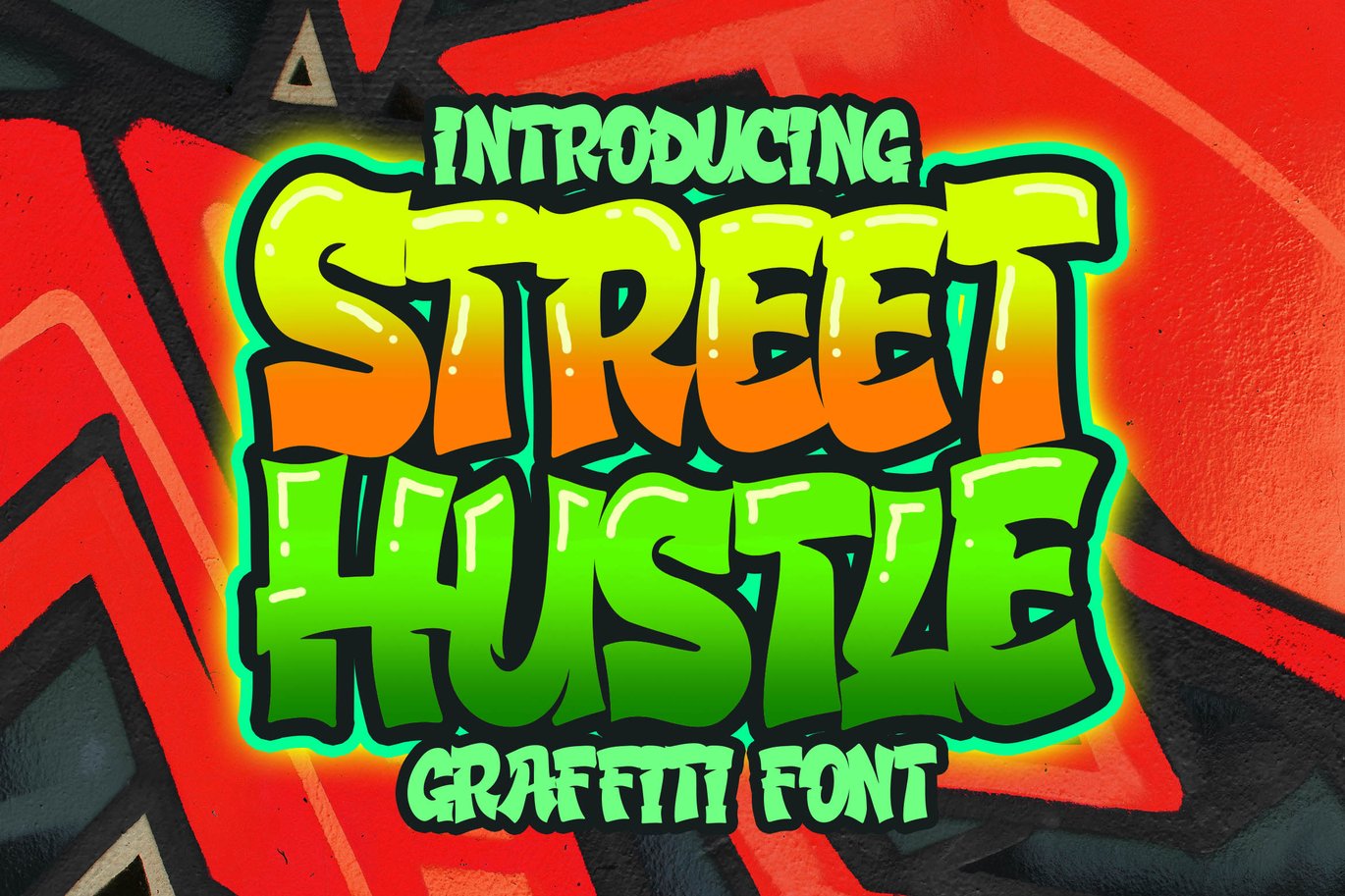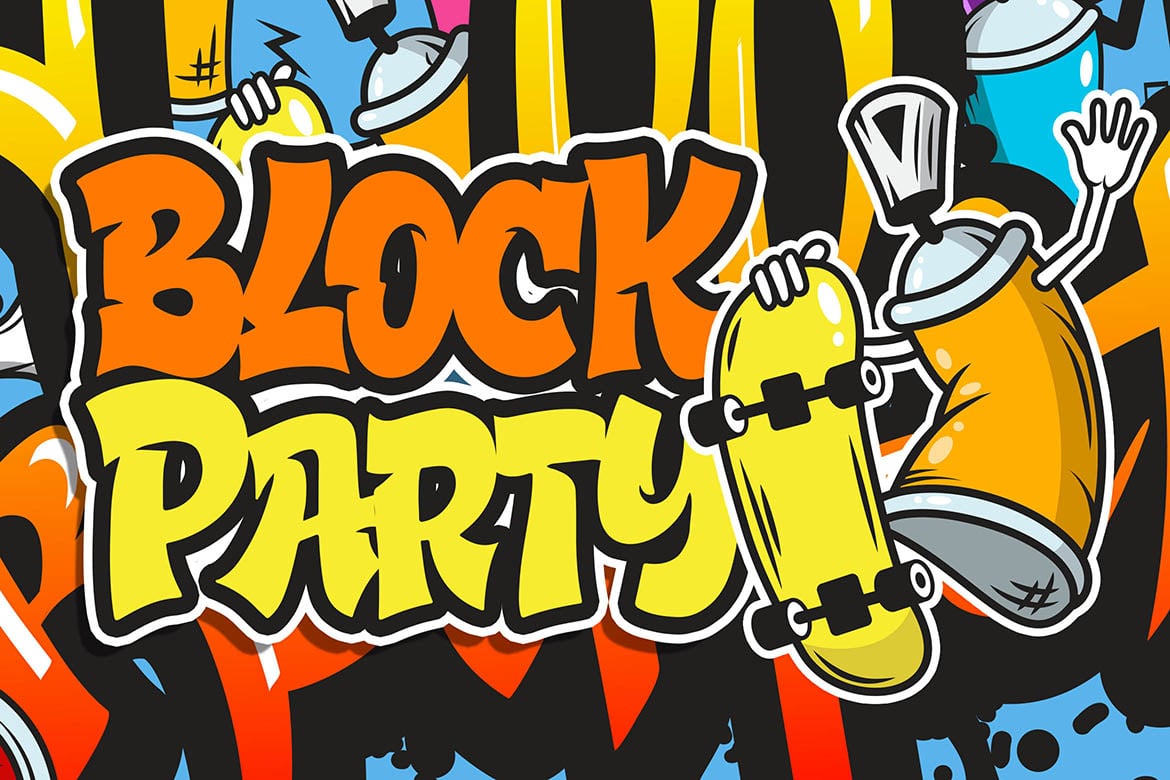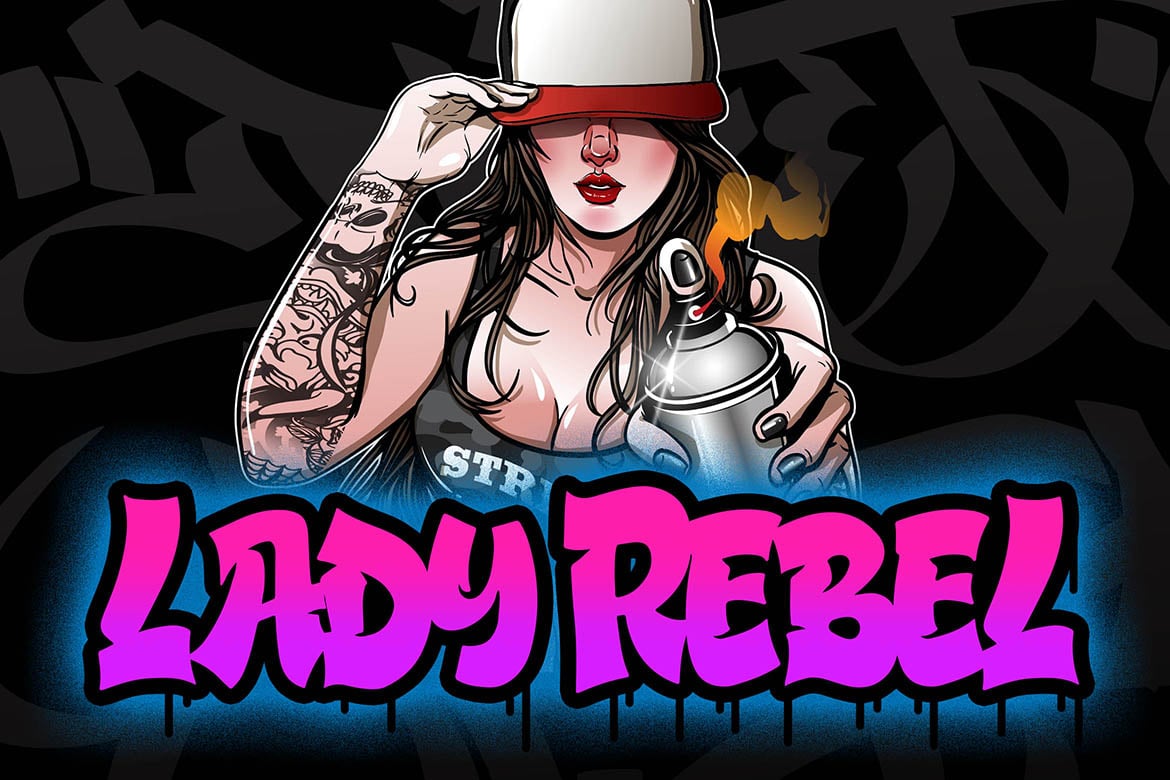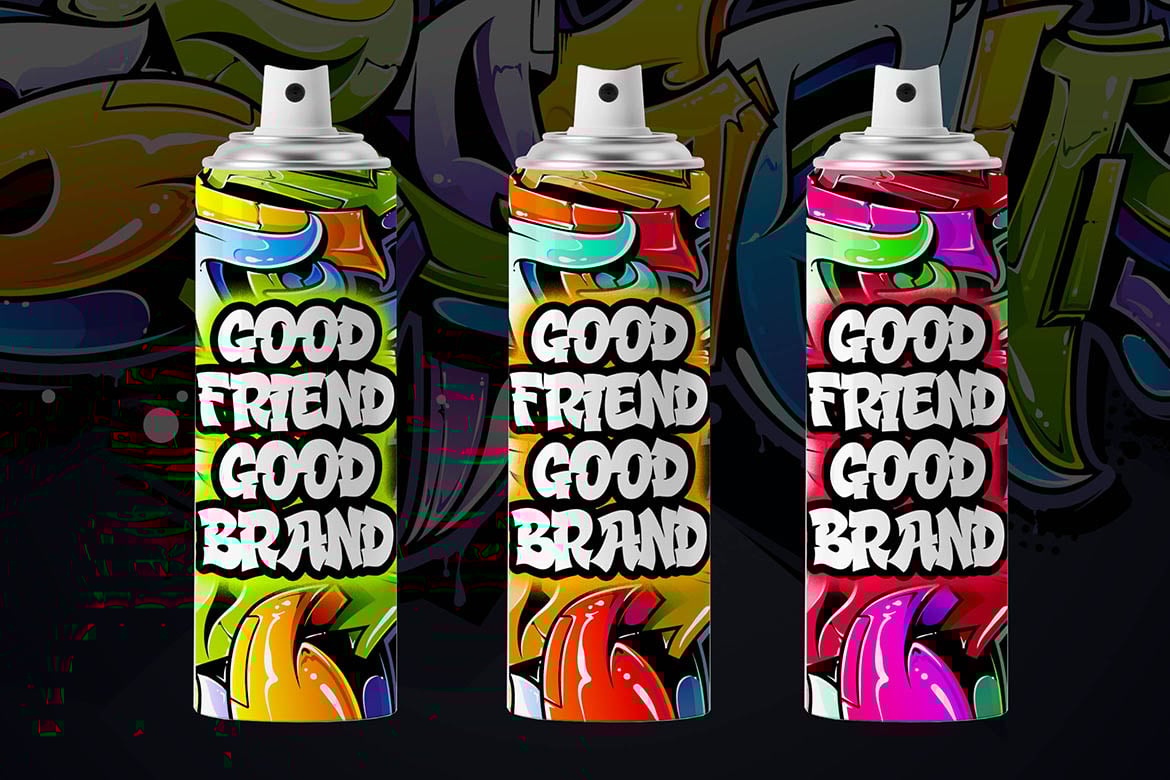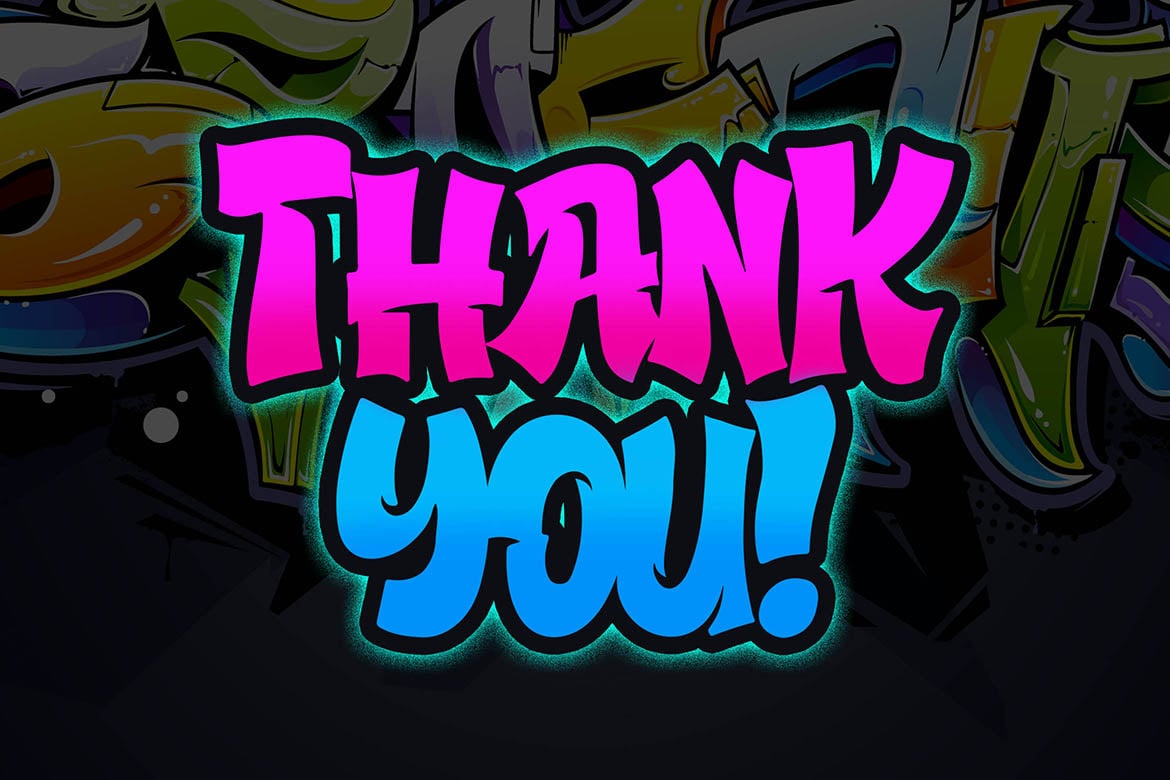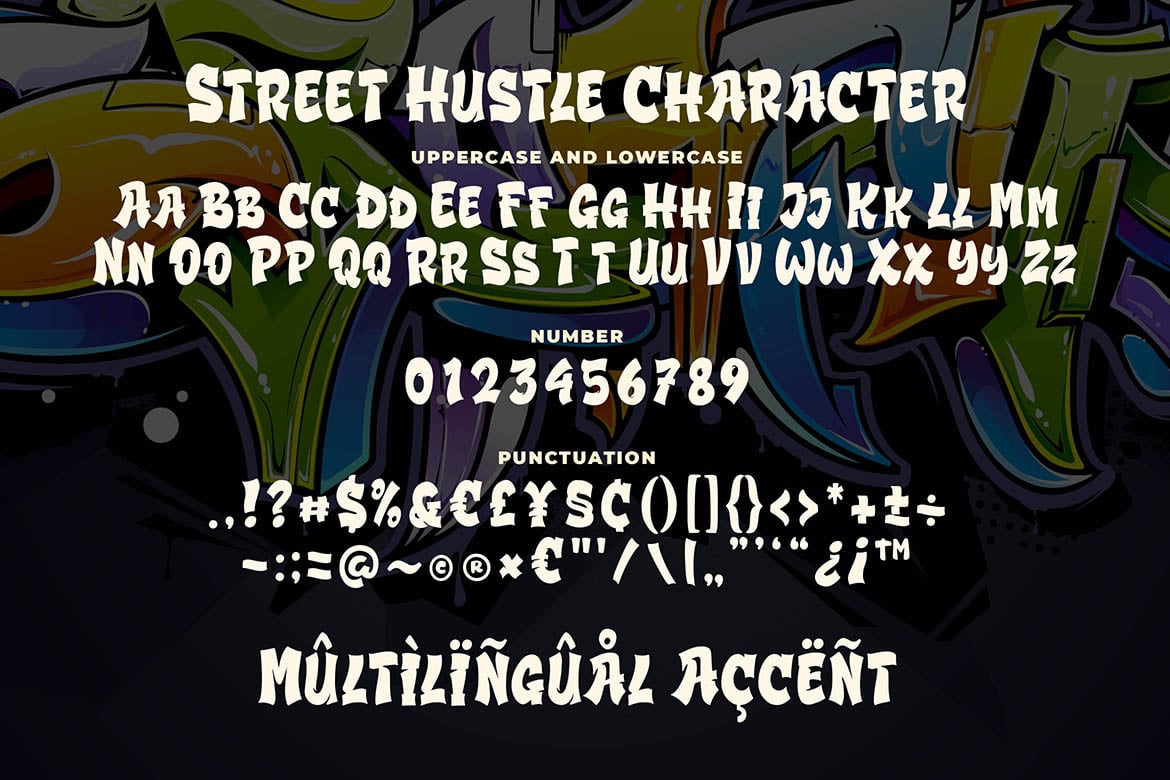
Street Hustle – Graffiti Font
Introducing of our new product the name is Street Hustle Graffiti Font. Street Hustle inspired by graffiti style with a fun theme very good for graffity poster, Hip Hop music, kids poster, flyer, childrenbook, cartoon, comic etc
MULTILINGUAL ACCENT :
ŽžŠŒšŸÀÁÂÃÄÅÆÇÈÉÊËÌÍÎÏÐÑÒÓÔÕÖØÙÚÛÜÝßàáâãäåæçèéêëìíîïñòóôõöøùúûüýÿ